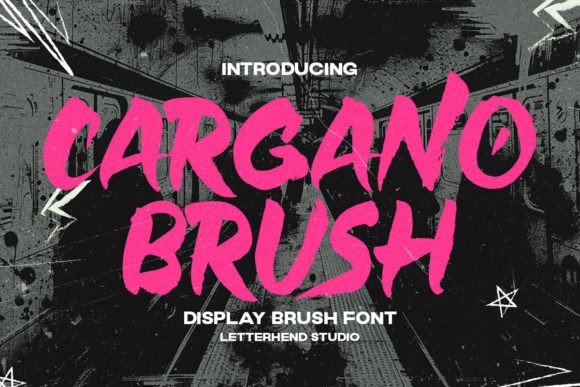
Cargano Brush: A Dynamic Typeface for Bold Branding
If you are looking to infuse your brand with energy and attitude, Cargano Brush is a premium display font that transforms standard headlines into dynamic statements. As a small business owner who has spent years refining my visual identity, I know that choosing the right typeface is not just about aesthetics; it is about communicating the soul of your company to every customer who sees your name. This creative font features dynamic and casual brush strokes that make headlines pop, offering a perfect blend of professionalism and approachability for entrepreneurs in the world of sports, lifestyle brands, and beyond.
How Cargano Brush Elevates Logo Design and Business Cards
When you first introduce Cargano Brush to your logo design or business card, you immediately signal that your brand is energetic and confident. Many entrepreneurs struggle to find a typeface that feels handcrafted yet legible on a small card, but this display font solves that problem by balancing artistic flair with structural integrity. Imagine a local gym, a boutique fitness studio, or an active lifestyle coaching business using this font; the brush strokes convey movement and passion without sacrificing readability. By integrating Cargano Brush as the primary headline font, you create a memorable visual anchor that helps customers recognize your business instantly. It turns a simple name tag into a statement piece that invites conversation and builds trust from the very first glance.
Why Cargano Brush Works Best for Sports and Active Lifestyle Brands
The specific design of Cargano Brush makes it uniquely suited for the high-energy world of sports and active living. If you run a sporting goods store, a yoga studio, or a team apparel line, this font captures the thrill of competition and the joy of movement. Unlike stiff, geometric fonts that can feel cold or corporate, the casual brush strokes of Cargano Brush add a human touch that resonates with athletes and enthusiasts. When used on jerseys, event flyers, or social media banners, it suggests that your brand is dynamic and ready for action. This alignment between your typography and your industry niche helps you connect more deeply with your target audience, making your marketing materials feel authentic rather than manufactured.
Transforming Product Labels and Packaging with Cargano Brush
For handmade product sellers and boutique owners, packaging is often the first physical interaction a customer has with your brand, and Cargano Brush offers a way to make that moment unforgettable. Whether you are labeling artisanal candles, crafting custom soap bars, or designing stickers for your online shop, this font adds a layer of personality that generic sans-serif fonts simply cannot match. The expressive nature of Cargano Brush allows your product labels to stand out on crowded shelves or in digital storefronts like Etsy and Amazon. By using this display font for your product names and key selling points, you create a cohesive look that tells a story of care and creativity. It elevates your packaging from a mere container to a branded experience that customers want to share on social media.
Cargano Brush for Social Media Graphics and Digital Ads
In the fast-paced environment of Instagram, Pinterest, and Facebook, grabbing attention within seconds is critical, and Cargano Brush is an excellent tool for creating scroll-stopping content. When designing promotional graphics, event announcements, or discount flyers, this font ensures your text commands attention immediately. Its bold, brush-style appearance cuts through the noise of plain text posts, making your digital ads look professional and polished. Small business owners can use Cargano Brush to highlight limited-time offers or new product launches, turning a standard update into a visually exciting announcement. Because it is designed to be a display font, it works best when paired with a clean, readable body text, ensuring that your message is both eye-catching and easy to digest on mobile screens.
Creating Consistent Brand Identity Across All Touchpoints
Building a trustworthy brand requires consistency, and Cargano Brush provides a versatile foundation for maintaining a unified voice across all your business materials. From website headers and email newsletters to thank-you cards and menu boards, this font helps tie your entire brand identity together. When customers see the same distinctive brush strokes on your website, your physical store signage, and your printed brochures, they subconsciously associate those visuals with reliability and quality. Using Cargano Brush as your primary headline font creates a recognizable pattern that reinforces your brand presence in the minds of your audience. This consistency reduces cognitive load for your customers, making it easier for them to remember your business and recommend it to others.
Practical Font Pairing Strategies for Professional Results
To maximize the impact of Cargano Brush, it is essential to pair it with complementary typefaces that enhance its readability and style. Since this is a decorative display font, it shines best when contrasted with a clean, neutral sans-serif font for body text or detailed information. For example, you might use Cargano Brush for the main title of a flyer and pair it with a simple Helvetica or Open Sans for the instructions and contact details. This combination ensures that while your headlines capture attention with their energy and attitude, the supporting text remains clear and accessible. If you prefer a slightly more traditional look, pairing it with a classic serif font can also work well for businesses aiming for a sophisticated yet modern aesthetic. The key is to let Cargano Brush take the lead as the hero typeface while your secondary fonts handle the heavy lifting of communication.
Testing Cargano Brush Before Full Brand Implementation
Even the most promising display font needs real-world testing before you commit to using it across your entire brand identity. Start by applying Cargano Brush to a few key assets, such as a single product label, a social media post, or a website banner, to see how it performs in different contexts. Pay close attention to how the brush strokes render at various sizes, especially on small packaging or mobile devices where legibility is paramount. If the font looks great in your mockups but becomes hard to read on a tiny sticker, you may need to adjust the size or spacing. This practical testing phase ensures that Cargano Brush enhances your brand rather than complicating it, giving you the confidence to roll it out fully once you are satisfied with its performance.